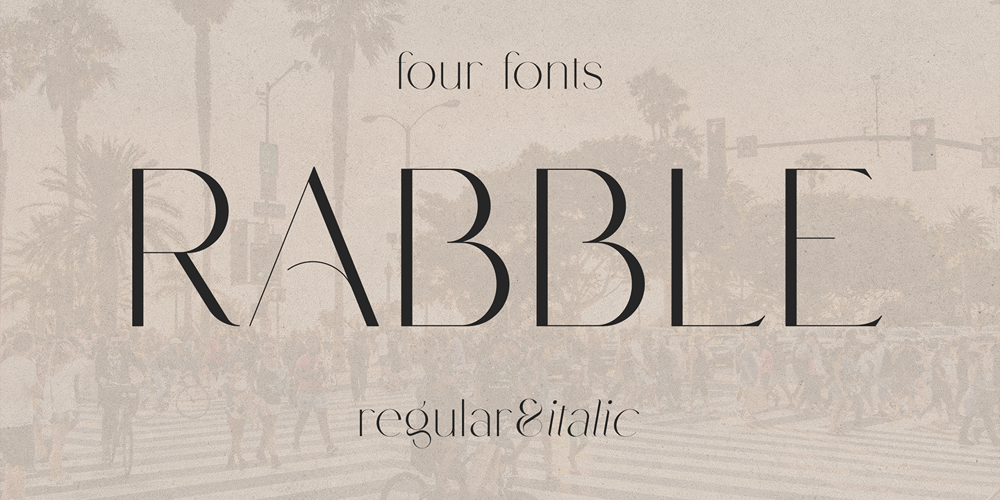
Rabble Font Family was designed by Vladimir Fedotov, Plamen Petrov and published by VP Creative Shop. Rabble contains 4 styles and family package options. Introducing Rabble – display typeface – 4 fontsRabble is fragile and vintage typeface loaded with 4 fonts and multilingual support. It’s a very versatile font that works great in large and small sizes.This font is perfect for branding projects, home-ware designs, product packaging, magazine headers – or simply as a stylish text overlay to any background image.FEATURES Uppercase, lowercase, numeral, punctuation & Symbol Regular 2 alternate styles Italic Multilingual support No special software is required to type out the standard characters of the Typeface. Canva friendly Feel free to contact me if you have any questions!Mock ups and backgrounds used are not included.Thank you! Enjoy!